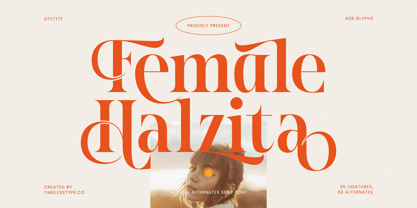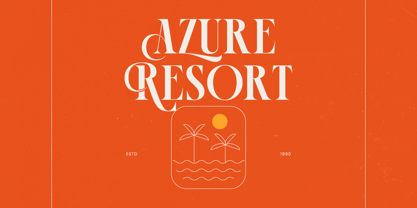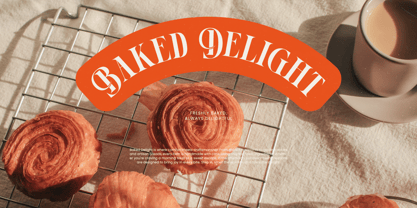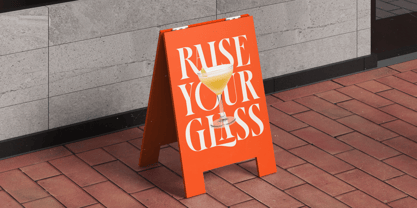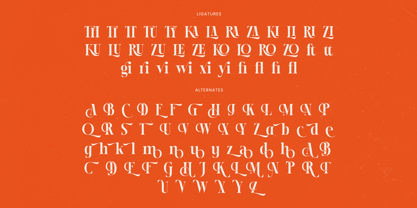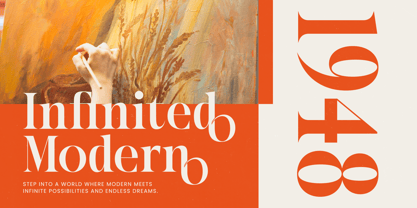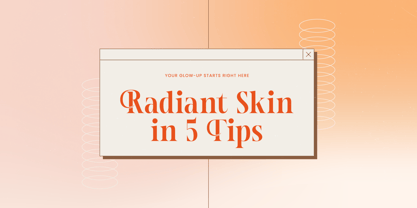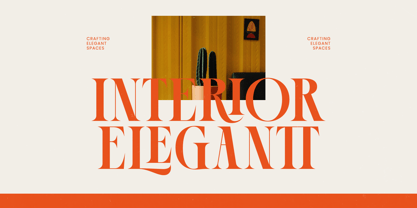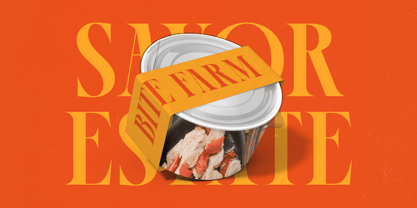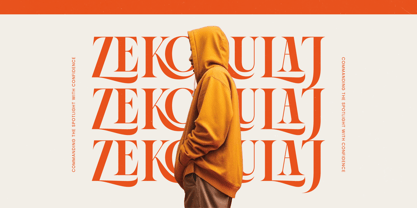
Female Halzita
The Female Halzita Font Family was designed by Heru Utama Putra and published by Timelesstype Studio. Female Halzita contains 2 styles and family package options. More about this family
Female Halzita - Modern Alternate Serif , from Timelesstype , Suitable for any projects such as: logos, branding projects, homeware designs, product packaging, mugs, quotes, posters, shopping bags, t-shirts, book covers, name card, invitation cards, greeting cards, label, photography, watermark, special events, and all your other luxury and beautiful projects that need a Luxury Serif taste.